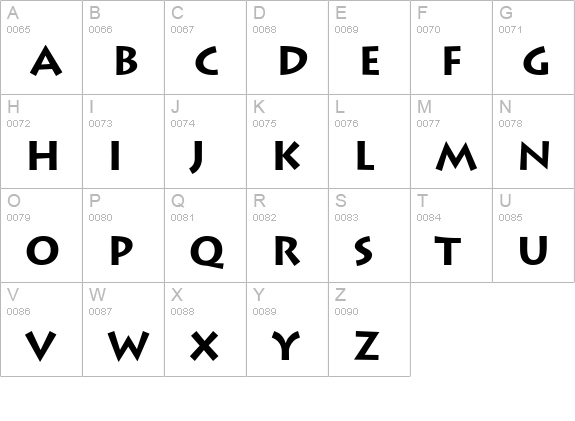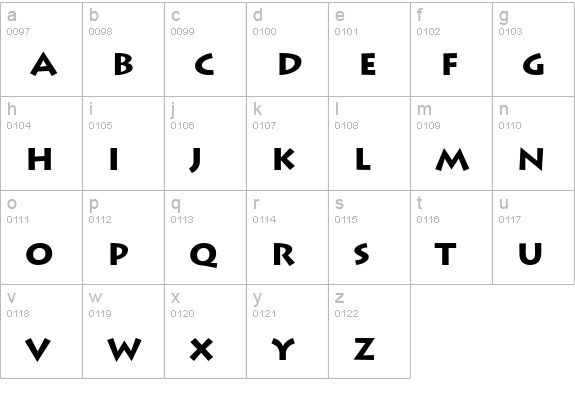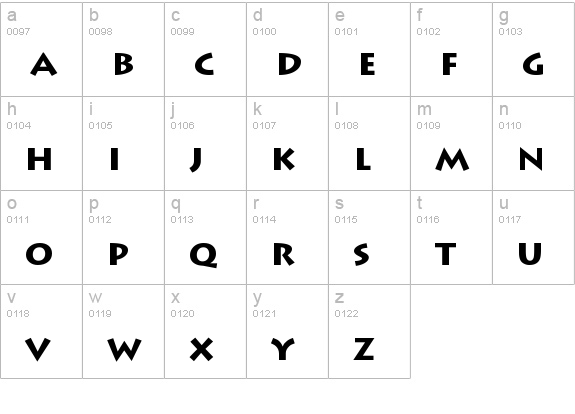
LeeToscanini7 BoldSH Font Details
Introducing LeeToscanini7 BoldSH, a captivating and versatile font that is sure to make a bold statement in any design project. This striking typeface combines the perfect balance of elegance and modernity, making it ideal for a wide range of applications. With its strong and commanding presence, LeeToscanini7 BoldSH demands attention and exudes confidence. Its bold and sharp lines add a touch of sophistication, while its unique and distinct letterforms make it truly stand out from the crowd. Whether you're designing a logo, creating eye-catching headlines, or crafting a sleek and stylish website, this font will add a touch of brilliance to your work. What makes LeeToscanini7 BoldSH even more appealing is the fact that it is freely available to download at FontsMarket.com. This means that you can unleash your creativity and bring your design visions to life without any constraints or limitations. Whether you're a professional designer or a passionate hobbyist, this font is the perfect tool to elevate your projects to new heights. Embrace the power of LeeToscanini7 BoldSH and let it be the driving force behind your next design endeavor. Its versatility, elegance, and modernity will captivate your audience and leave a lasting impression. So, don't miss out on the opportunity to enhance your creations with this remarkable font. Download LeeToscanini7 BoldSH today from FontsMarket.com and unlock a world of creative possibilities at your fingertips.